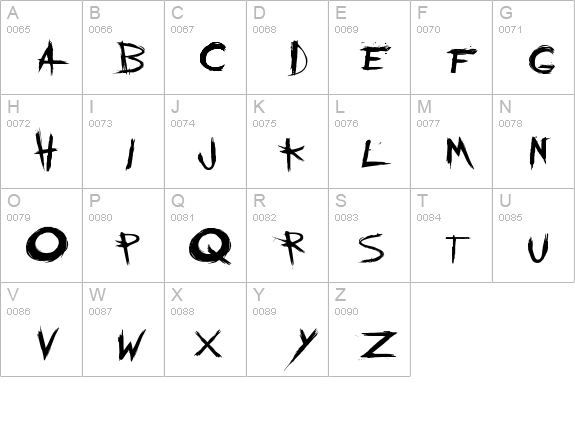
Introducing the captivating and bold My Chemical Romance font, a true testament to the power of self-expression and artistic rebellion. This innovative typeface embodies the spirit of the iconic rock band, My Chemical Romance, with its edgy and distinctive letterforms that exude raw emotion and unapologetic passion. Designed with meticulous attention to detail, the My Chemical Romance font captures the essence of the band's music, lyrics, and overall aesthetic. Its sharp and angular strokes create a sense of intensity and energy, perfectly mirroring the band's explosive performances and deeply emotive lyrics. What sets the My Chemical Romance font apart is not only its striking visual appeal but also its incredible versatility. Whether you're designing album covers, concert posters, or merchandise, this font effortlessly adds a captivating edge to any creative project. And the best part? The My Chemical Romance font is freely available to download at FontsMarket.com. This means that you can infuse your designs with the same rebellious spirit and distinctive style that made My Chemical Romance a true legend in the music industry. So, unleash your inner rockstar and let the My Chemical Romance font be your creative companion. Download it today and embark on a journey of self-expression, where every word becomes a statement and every design becomes a work of art.